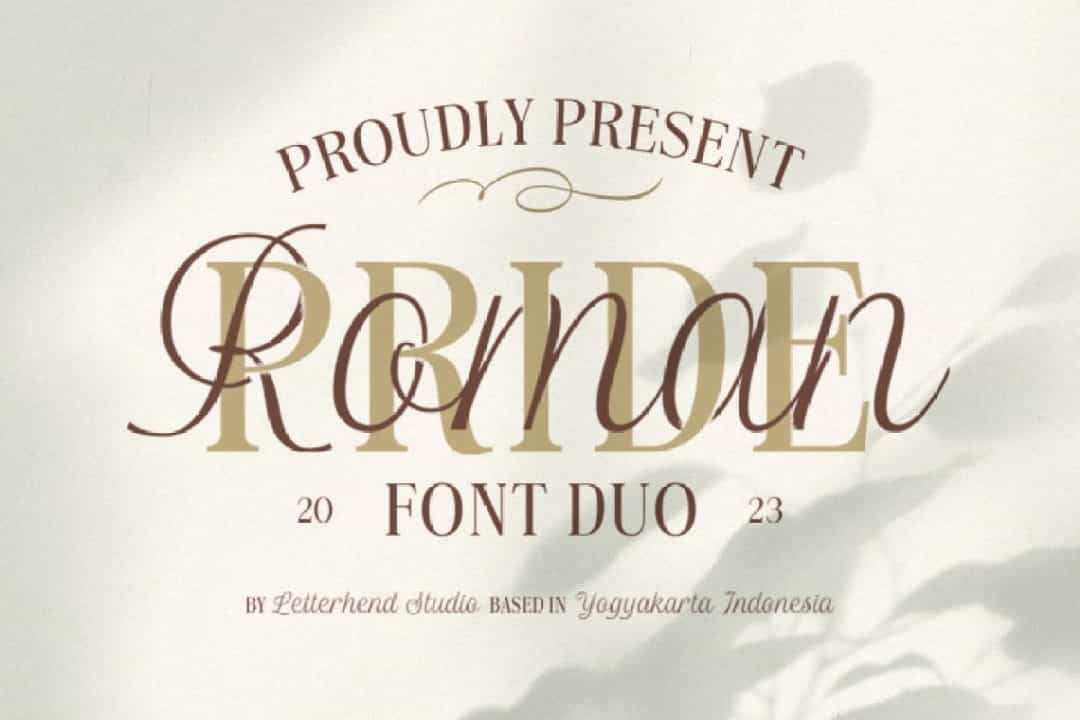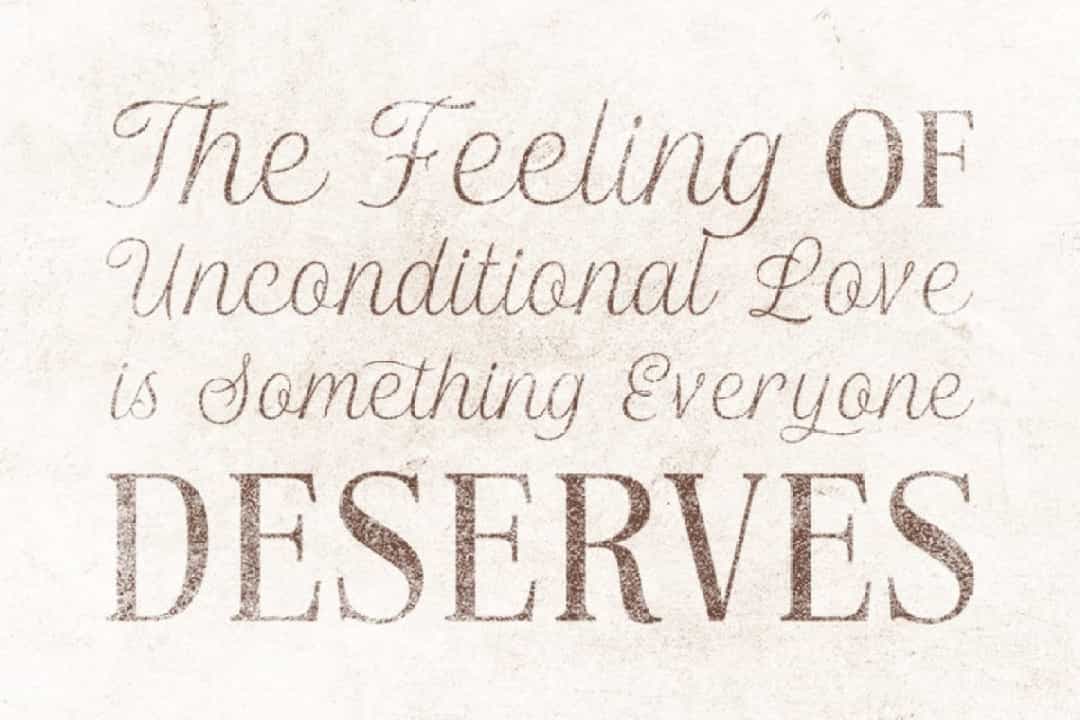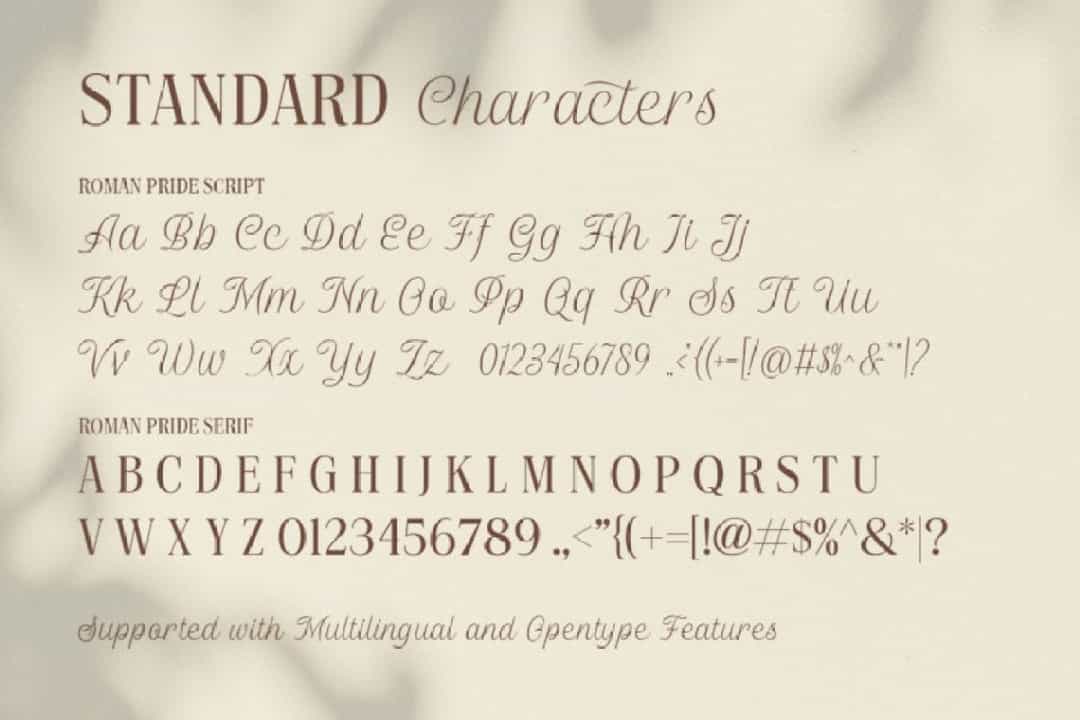
Discover Roman Pride Font, part of the Calligraphy Serif collection—a versatile and unique font perfect for adding a personal touch to your projects. Download it for free and enjoy crafting designs with style, from invitations to social media posts. This font is available exclusively for personal use, giving you the freedom to create without limits. Unlock your creativity with Roman Pride Font today!
Roman Pride font, a modern and trendy font pair featuring both an elegant serif font and adorable script font, can now be purchased. When combined, their combination results in an amazing harmony that bridges classical with contemporary styles – perfect for creating wedding invitations or formal forms that need to be presented.